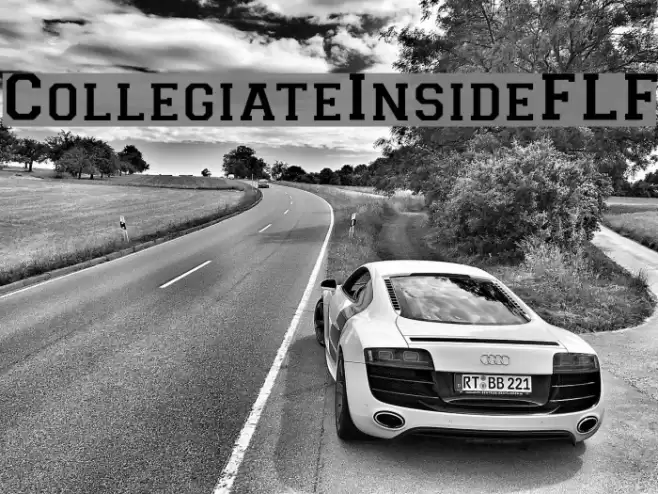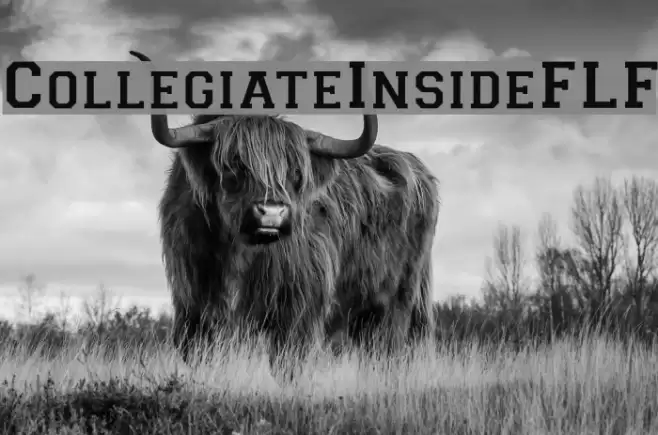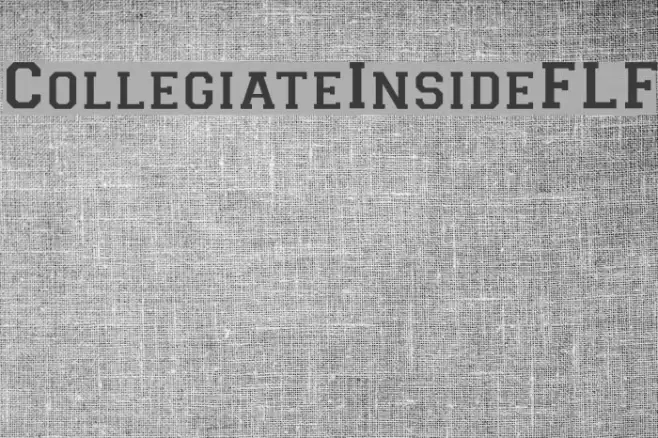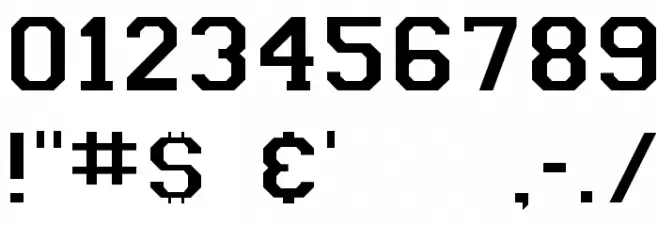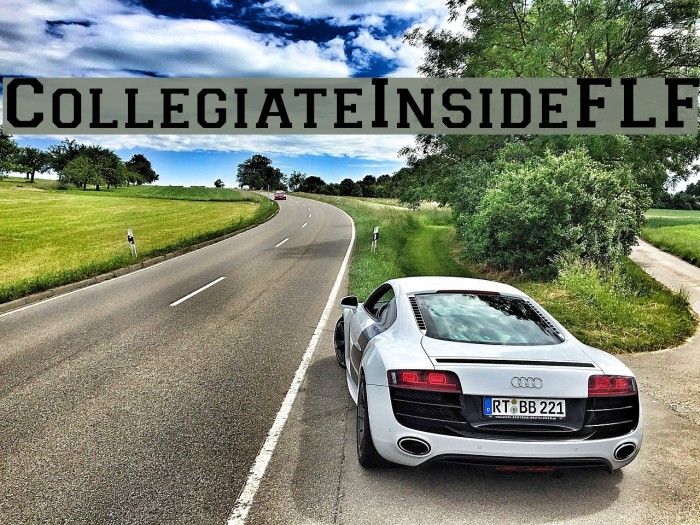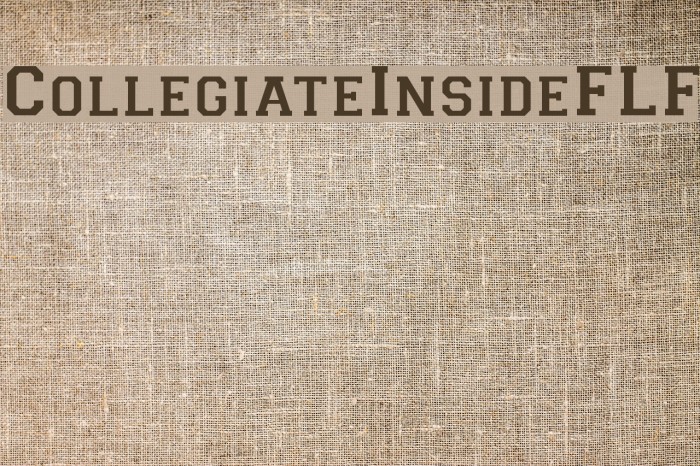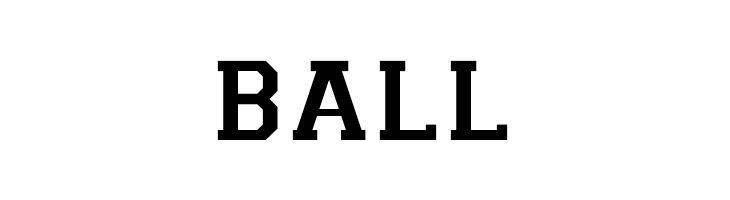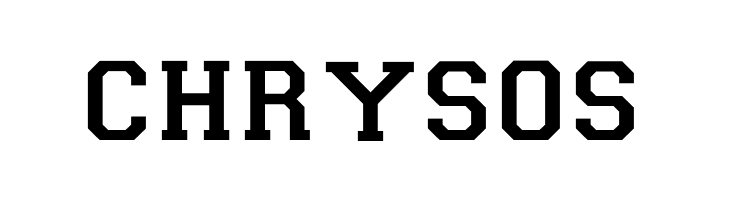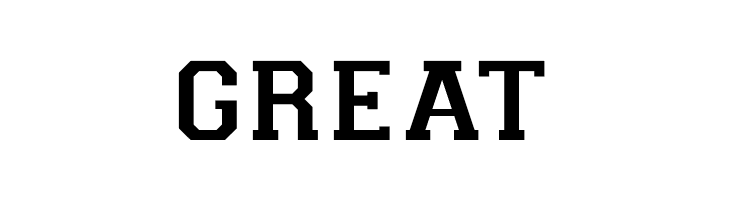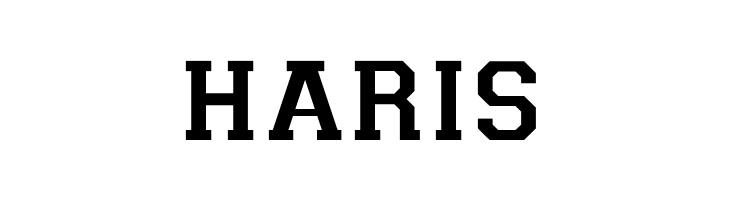
CollegiateInsideFLF Font
CollegiateInsideFLF Description
This font features a bold, collegiate style with strong, block-like characters that evoke a sense of tradition and strength. The uppercase letters are particularly prominent, with a uniform height and width that create a cohesive and balanced appearance. The lowercase letters maintain the same robust style, ensuring readability and consistency across different text sizes. Numbers and special characters are designed with the same attention to detail, making them ideal for use in various contexts. The font's geometric shapes and clean lines give it a modern touch, while its roots in traditional collegiate design make it versatile for both contemporary and classic projects.
A bold, collegiate-style font with strong, block-like characters and a modern touch from Uncategorized fonts.
- Proposed Projects: Ideal for sports team branding, university merchandise, posters, and event banners.
- Overall Style: Classic